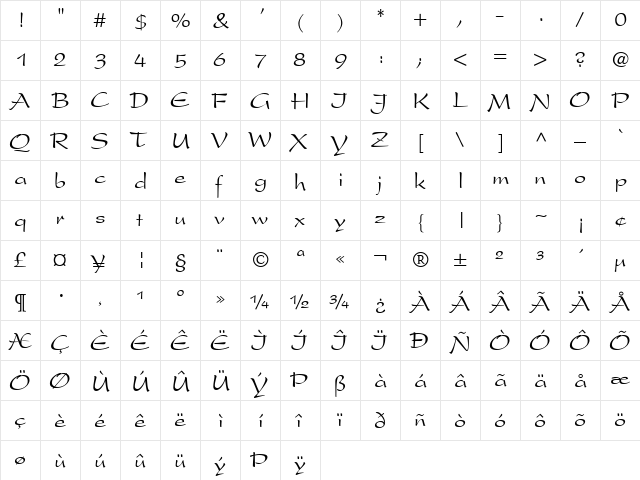
Keirn Regular
Design Context for Keirn Typeface
Keirn is a composed and adaptable typeface that performs quietly and consistently across a wide range of design contexts.